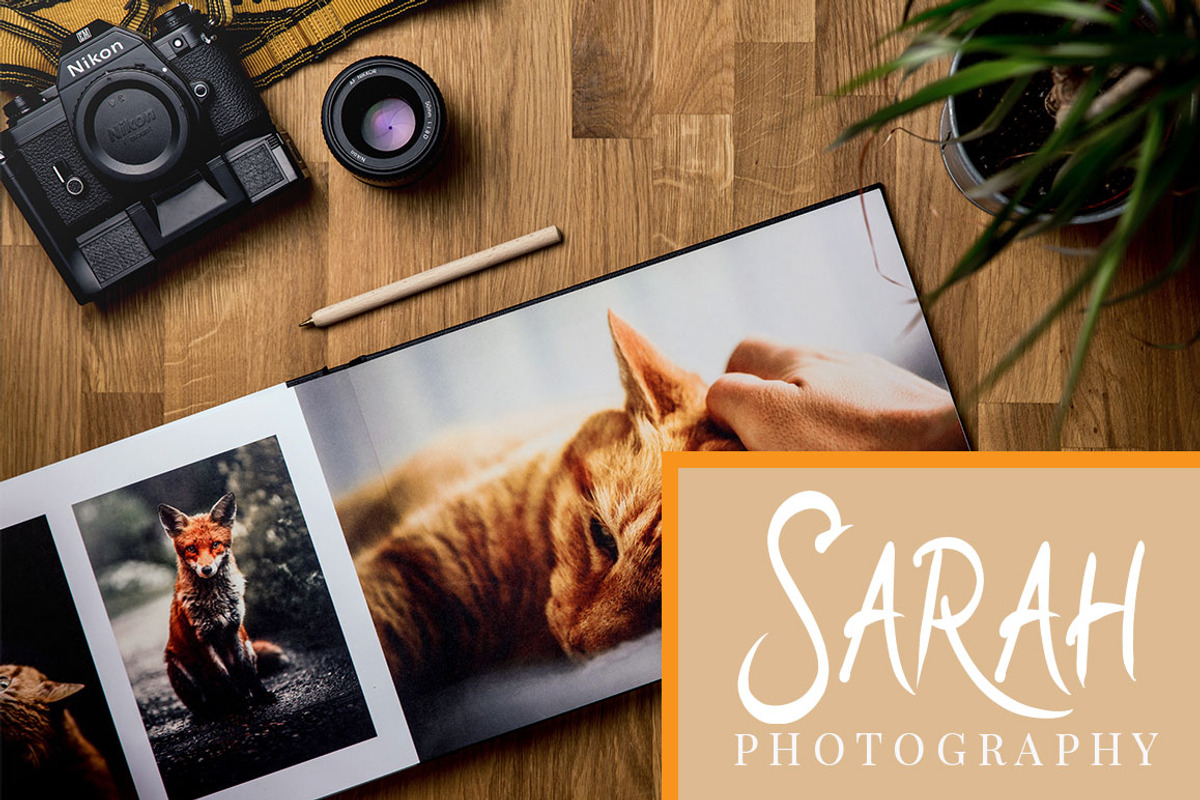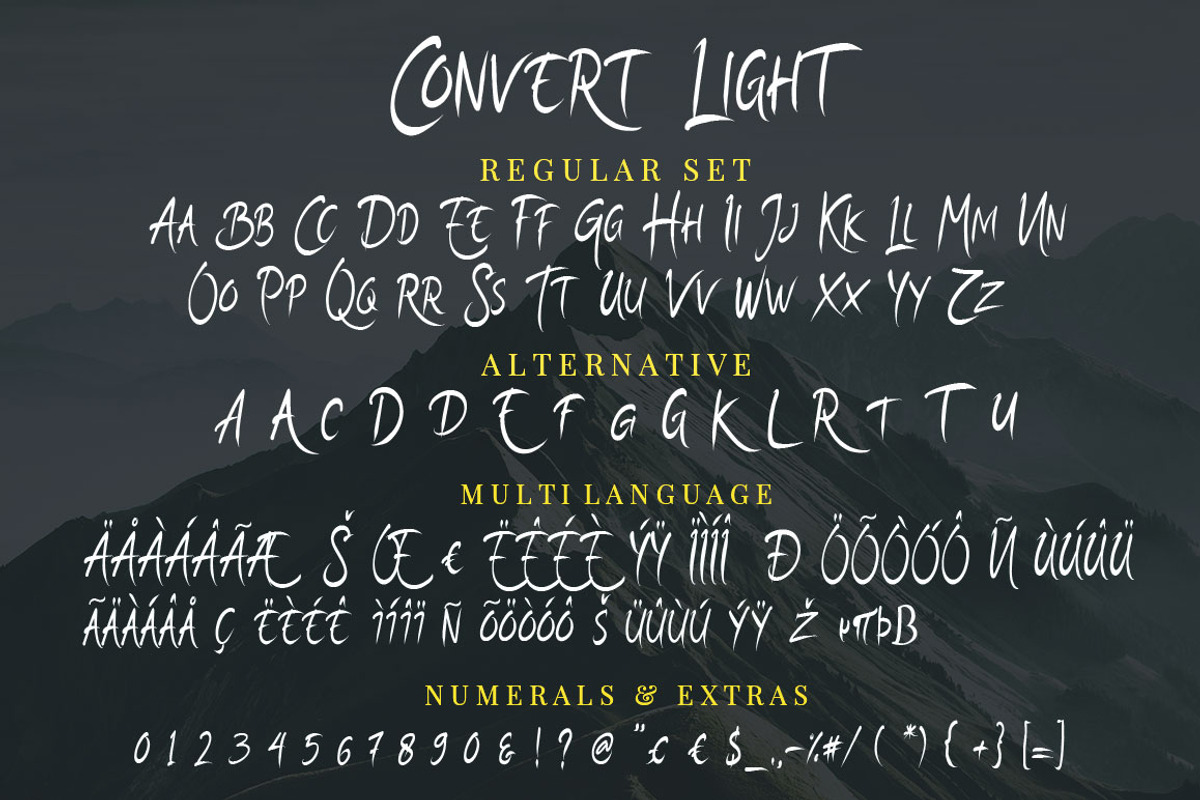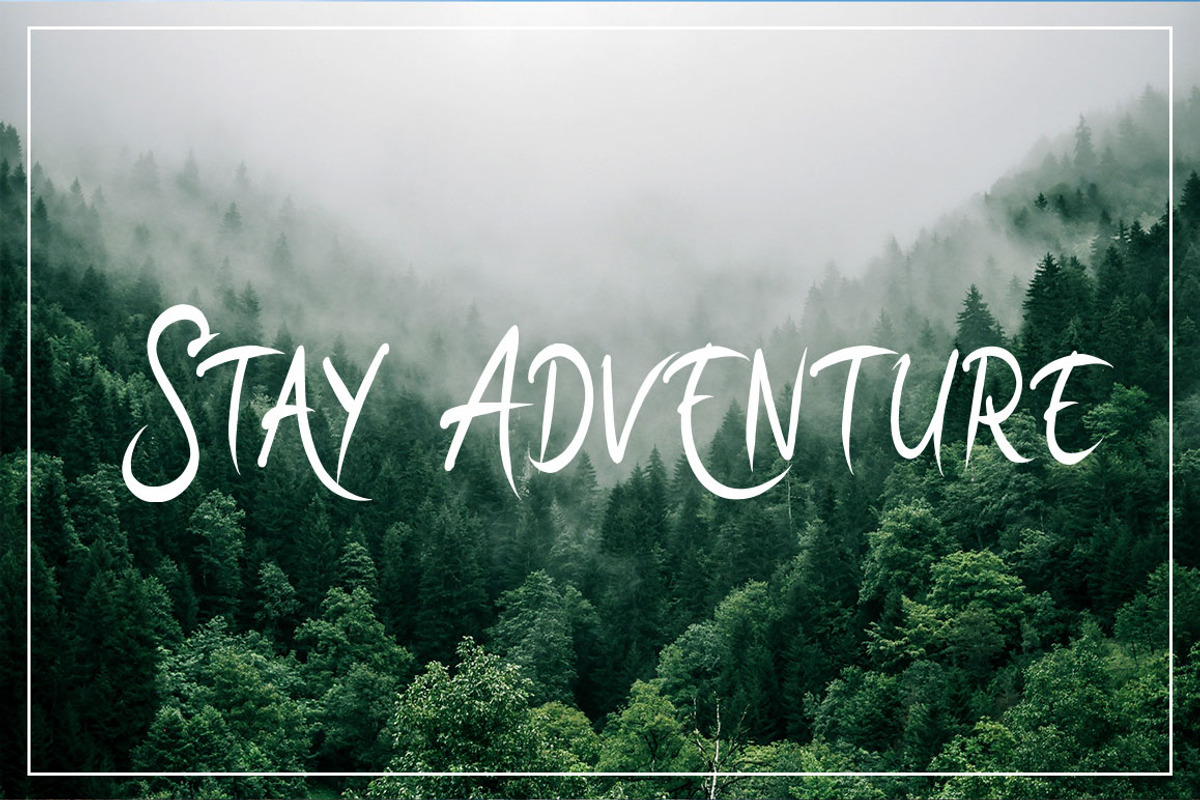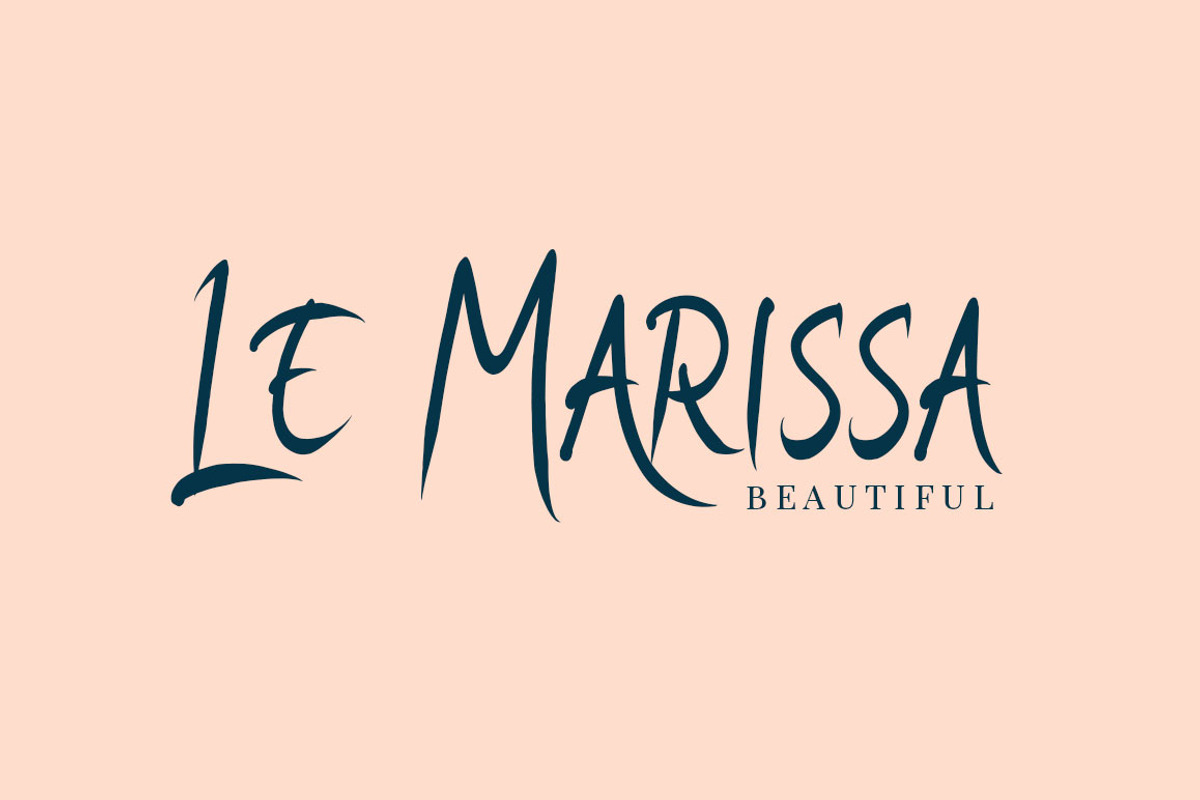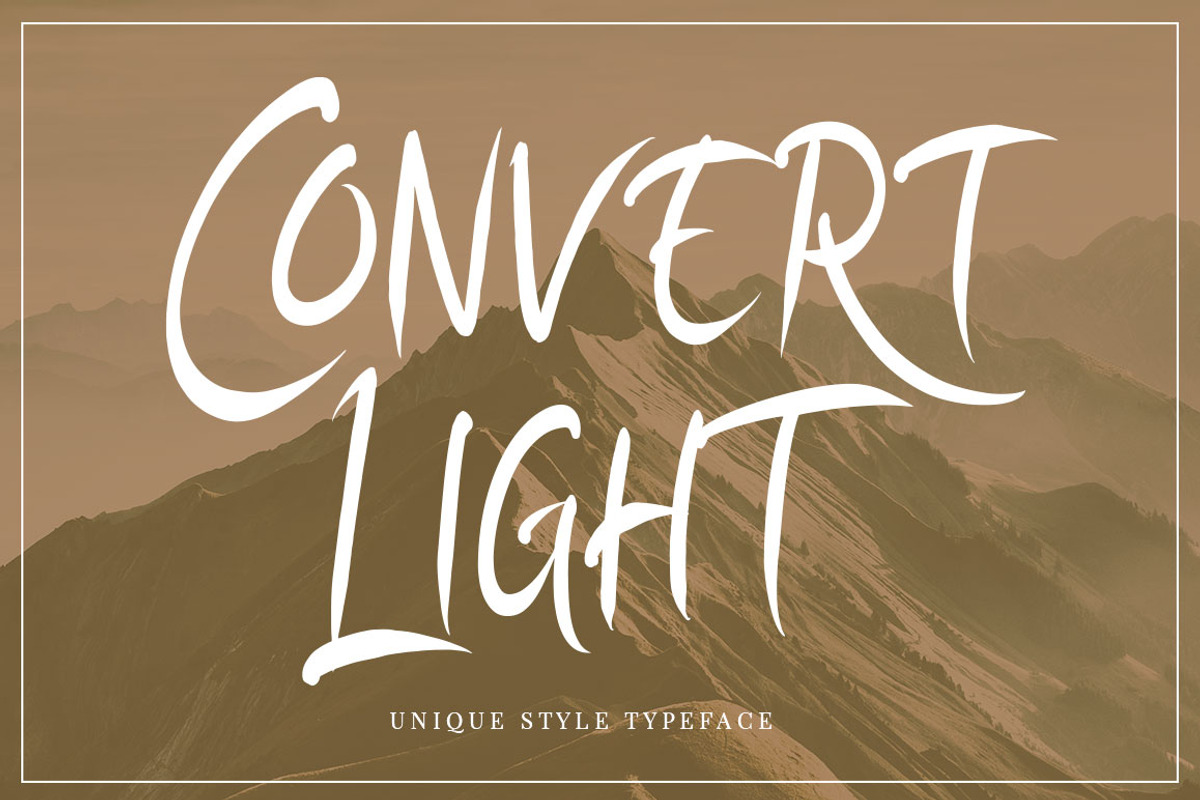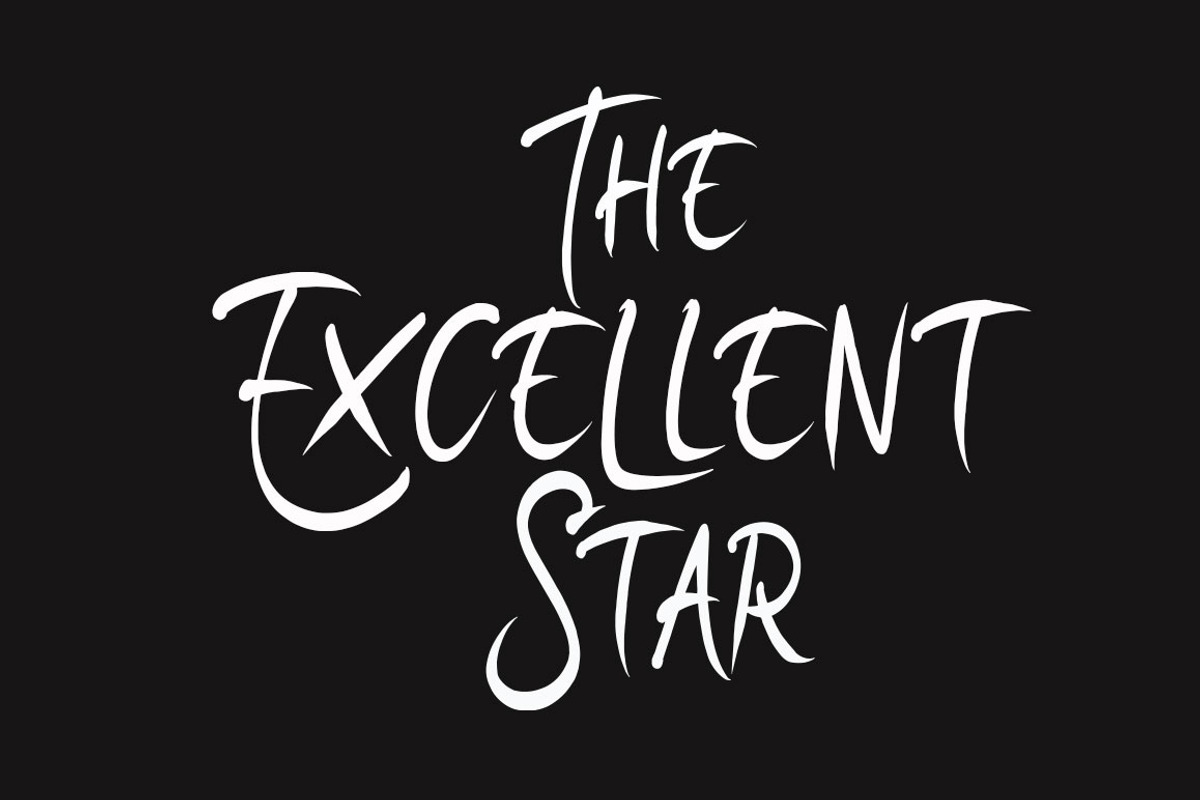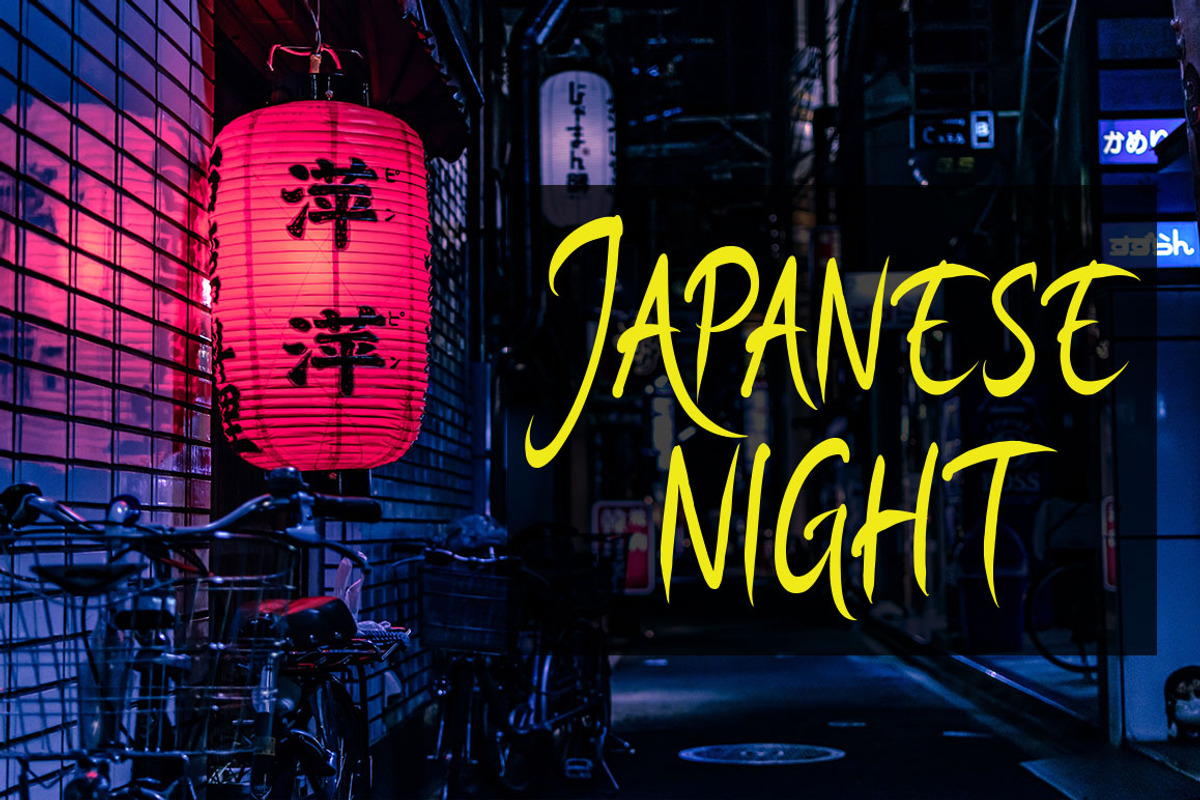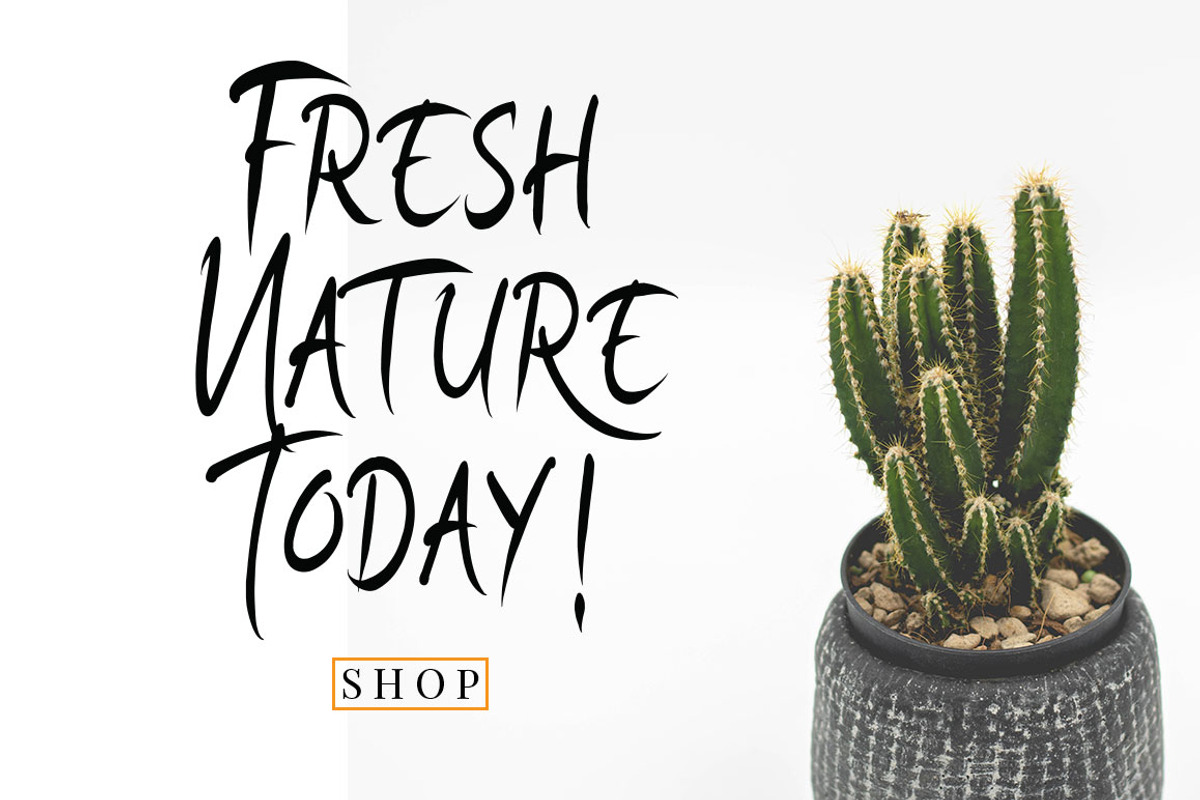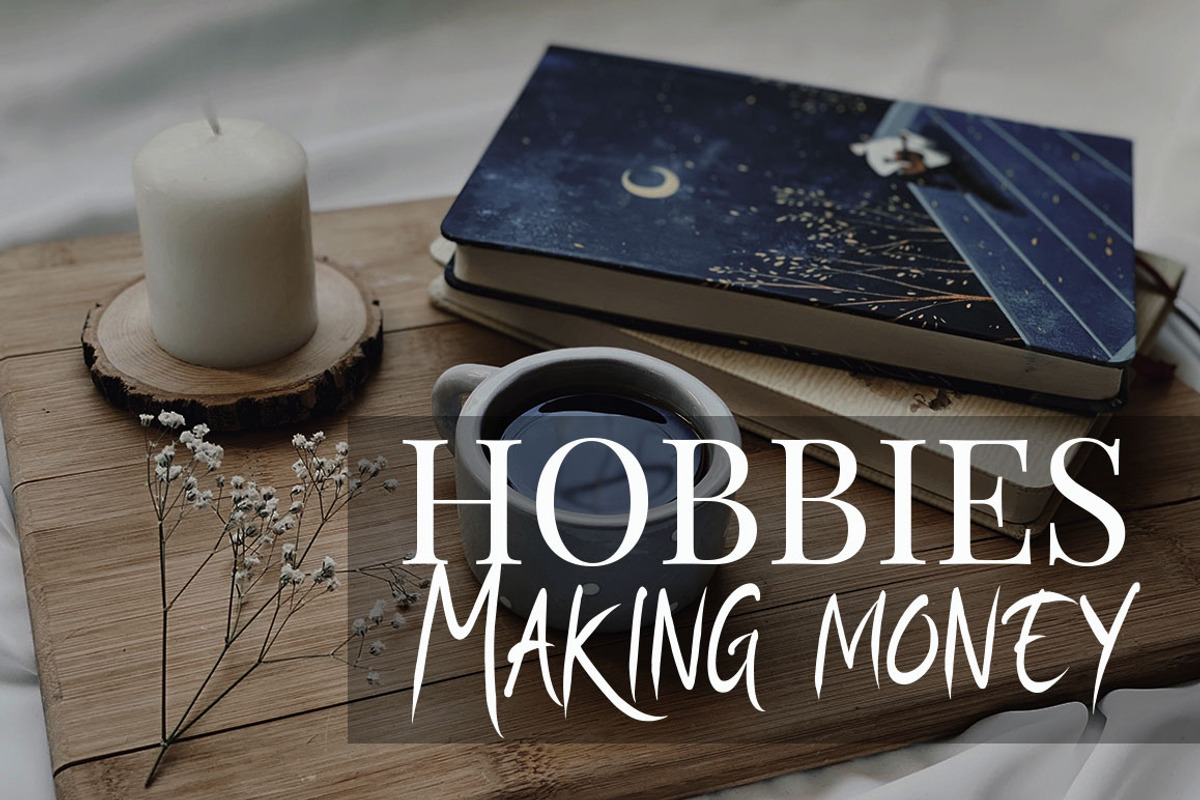
SALE Convert Light | Unique Typeface
Convert Light is something unique and interesting to display and can be used for various media needs, such as social media, brochures, posters, movies, cartoons, horrors, and more.
- Alternative Stylistic
- Stylistic Set
- Multilanguage Support